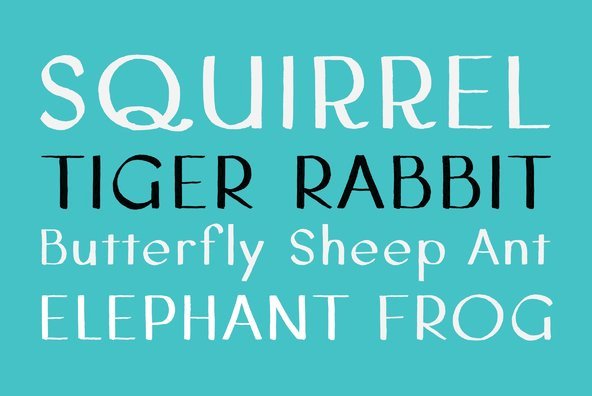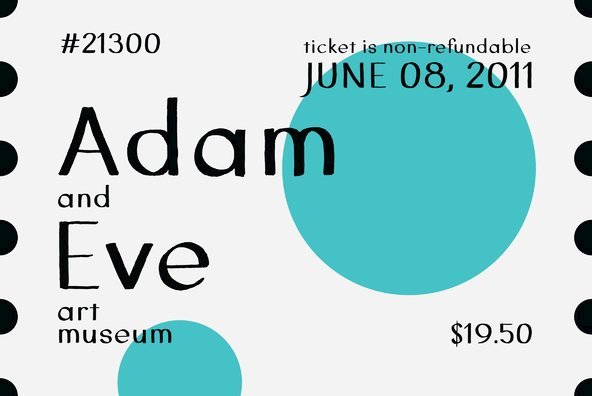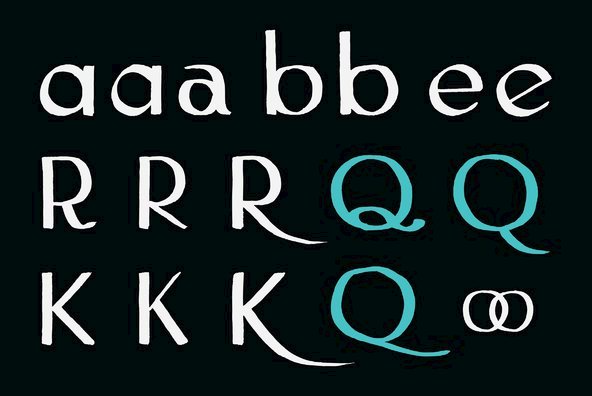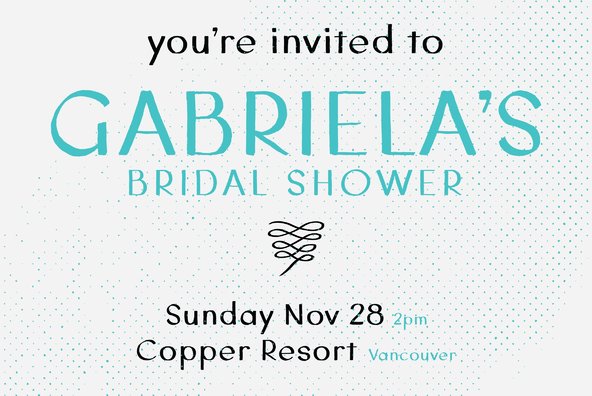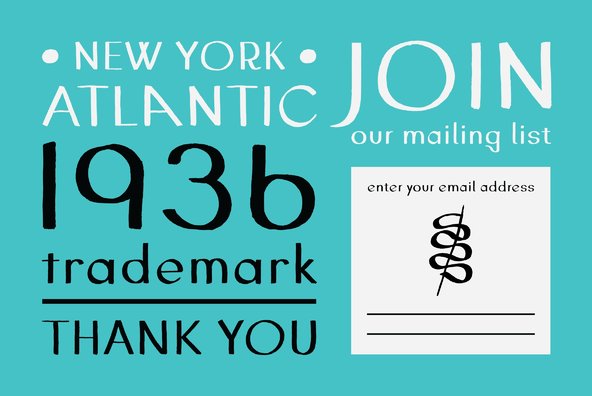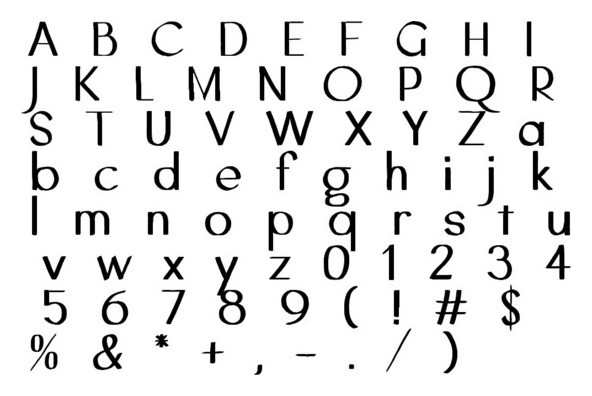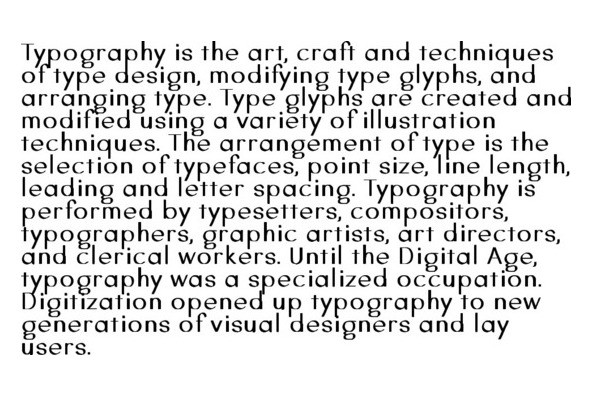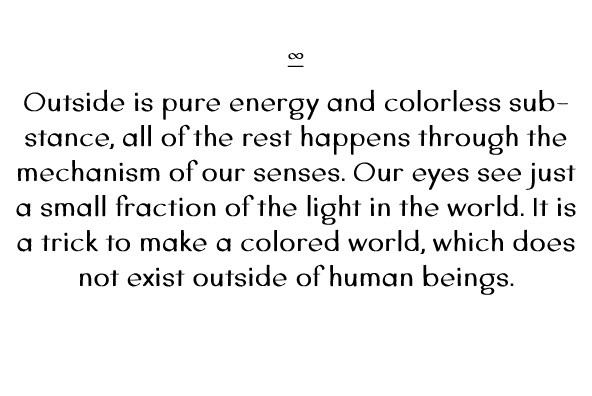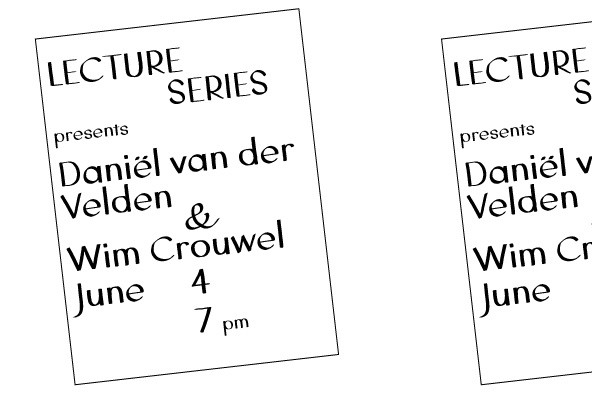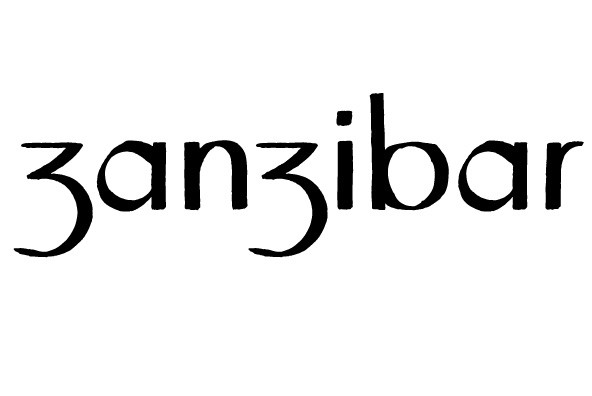
YWFT Isanti Font
YWFT Isanti
by YWFT Travis Stearns
Named after one of the most Swedish-American counties in Minnesota, Isanti is a hand lettered calligraphic font made to honor our nordic heritage, Lutheran illumination, and European newsstands. Generous spacing was given to Isanti to help with legibility at smaller point sizes, so it can be used for text as well as display. Isanti also offers up many stylistic alternates including old style letters, ligatures, and a handful of decorative swashes. Available in Open Type format so accessing all of those alternates is a cinch.